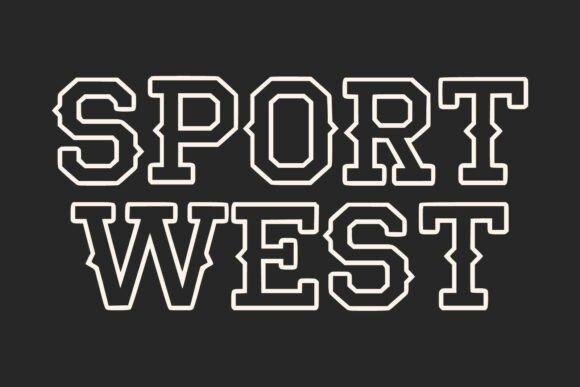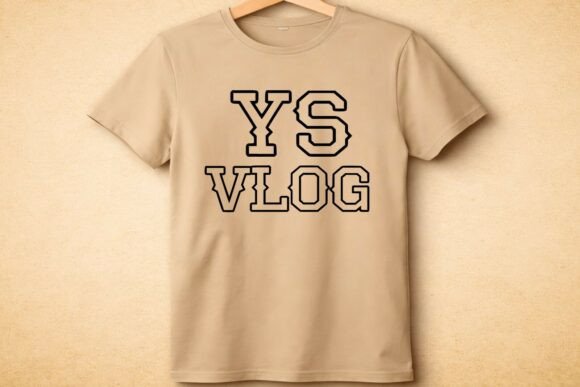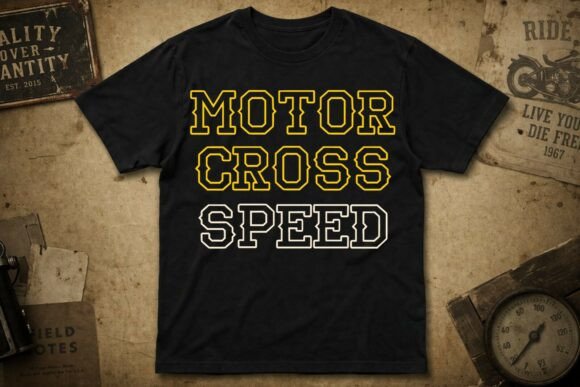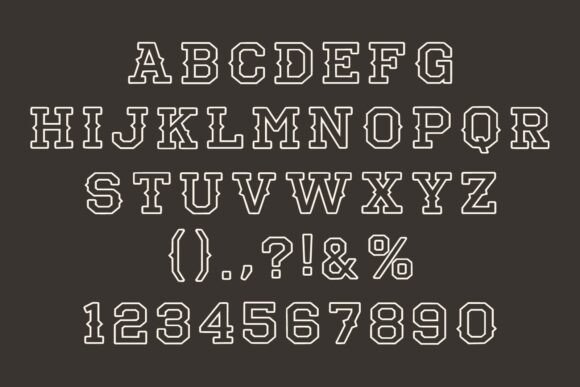
Introduction to Cowboy Outlines Font
As a designer, have you ever been stuck on a project, searching for the perfect font to bring your creative vision to life? You’ve scrolled through countless options, but nothing seems quite right. That’s where the Cowboy Outlines Font comes in – a bold and stylish display font that embodies the classic spirit of the Wild West.
With its strong slab-style letterforms and clean outline details, this typeface is a game-changer for designers looking to add a touch of vintage charm to their work. From logos to posters, branding to apparel, the Cowboy Outlines Font is a versatile design resource that’s perfect for a wide range of creative projects.
Key Features of Cowboy Outlines Font
- Includes outlines of cowboy characters and accessories, perfect for creating custom designs and illustrations.
Honest Review: Cowboy Outlines Font
I recently had the chance to work with the Cowboy Outlines Font in a creative project, and I must say it was a great experience. The font is perfect for adding a rustic touch to any design, and its free download makes it an excellent resource for designers on a budget.
- ✨ The font’s high quality is evident in its crisp outlines and smooth texture.
- ✨ The transparent background makes it easy to combine with other design elements.
- ✨ The font is highly customizable, allowing for a wide range of design possibilities.
- ⚠️ The font’s limited character set may not be suitable for long blocks of text.
- ⚠️ Some users may find the font’s outline style too bold or overpowering.
Overall, I was impressed with the Cowboy Outlines Font. Its unique style and high quality make it a valuable addition to any design resource library. While it may have some limitations, it’s a great option for designers looking to add a touch of rugged charm to their projects.
Cowboy Outlines Font
Tips for Getting the Most Out of the Cowboy Outlines Font
Experiment with different font sizes and colors to create a unique design. Use the transparent background to layer the font on top of other design elements. Combine the font with other design resources to create a cohesive look.
The Cowboy Outlines Font is ideal for creating designs for the western or country theme. Use it to create posters, flyers, or brochures for events or businesses related to the western theme. The font is also suitable for use in logos, branding, and other design elements where a unique and creative touch is needed.